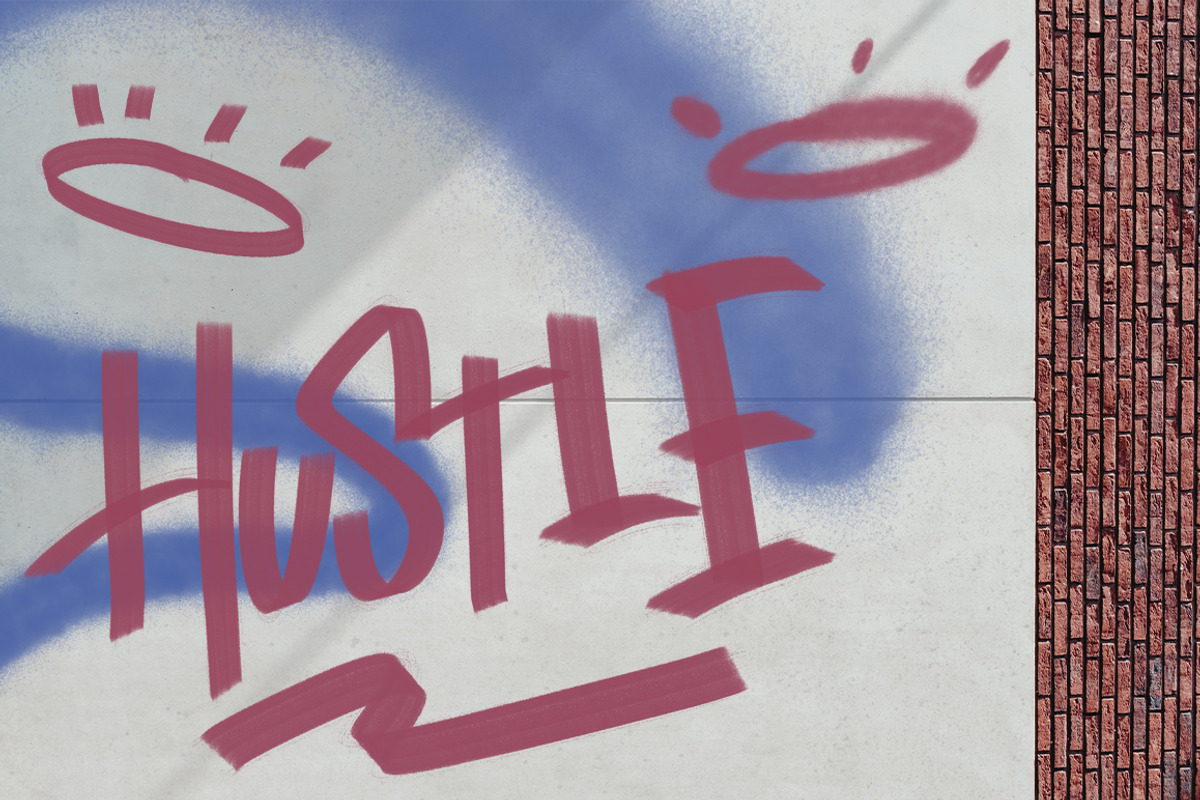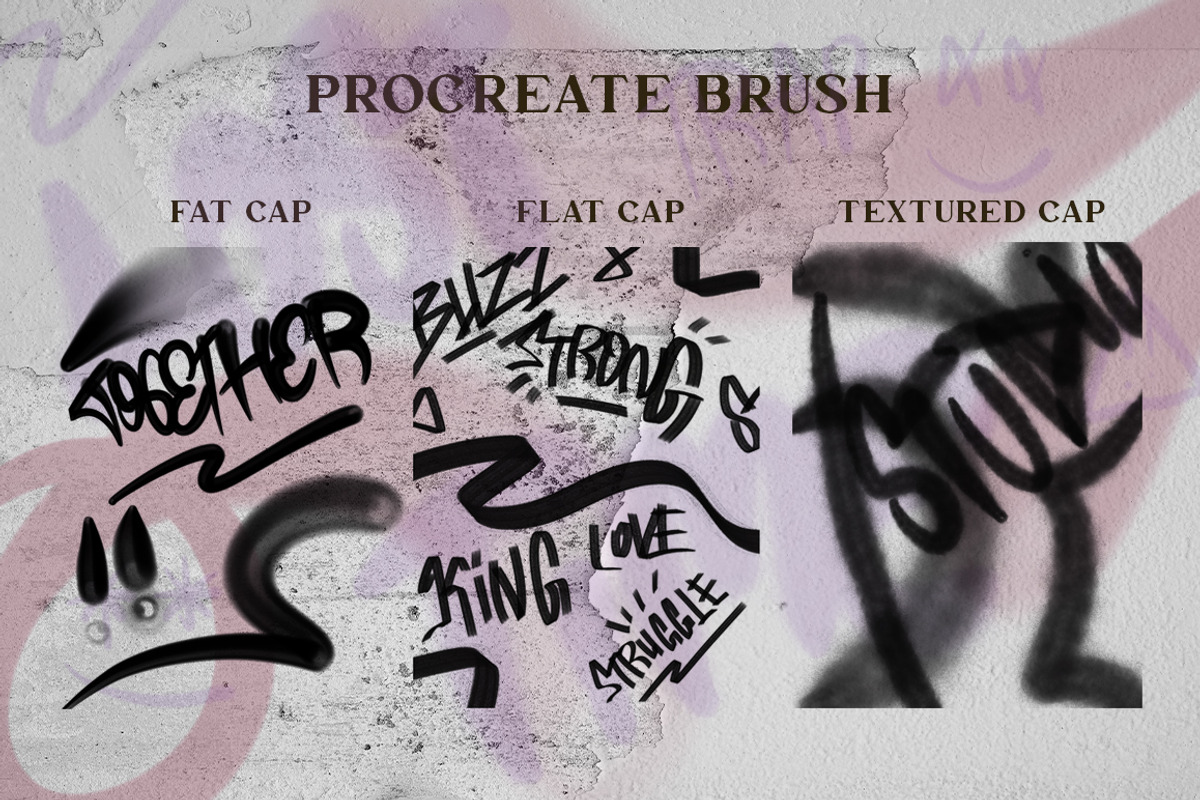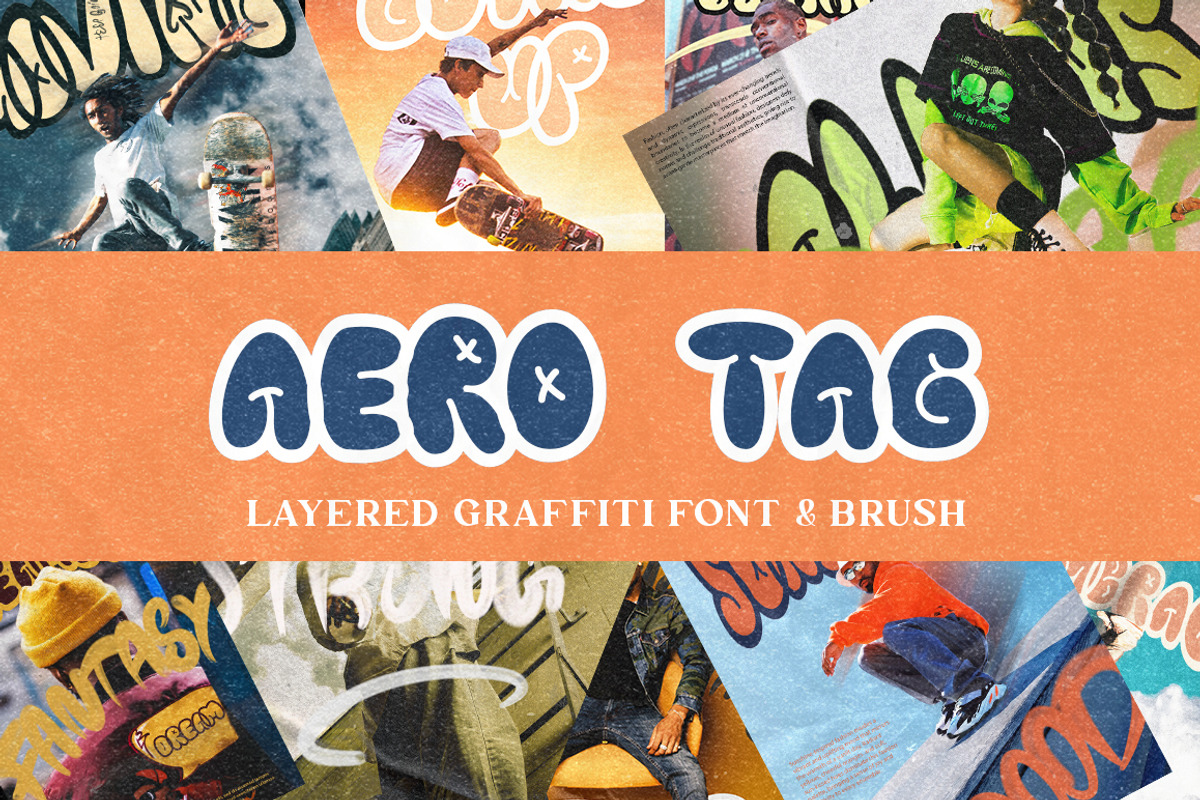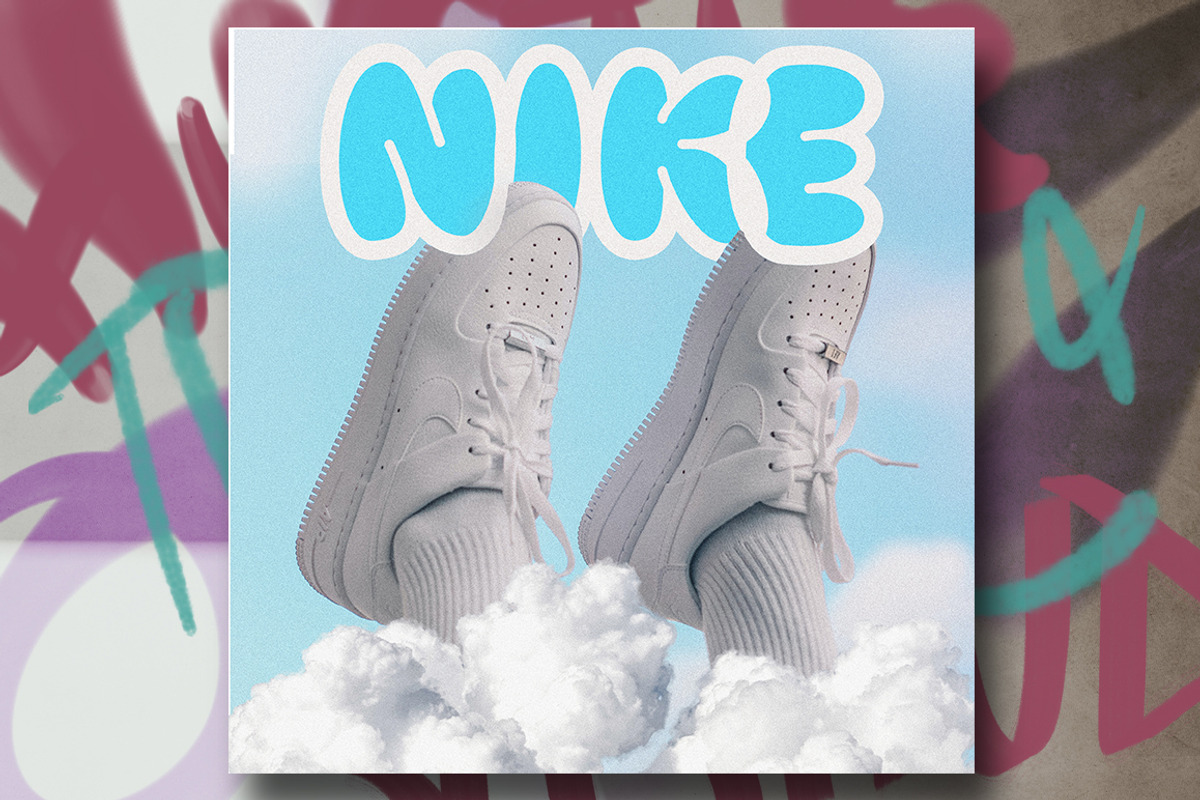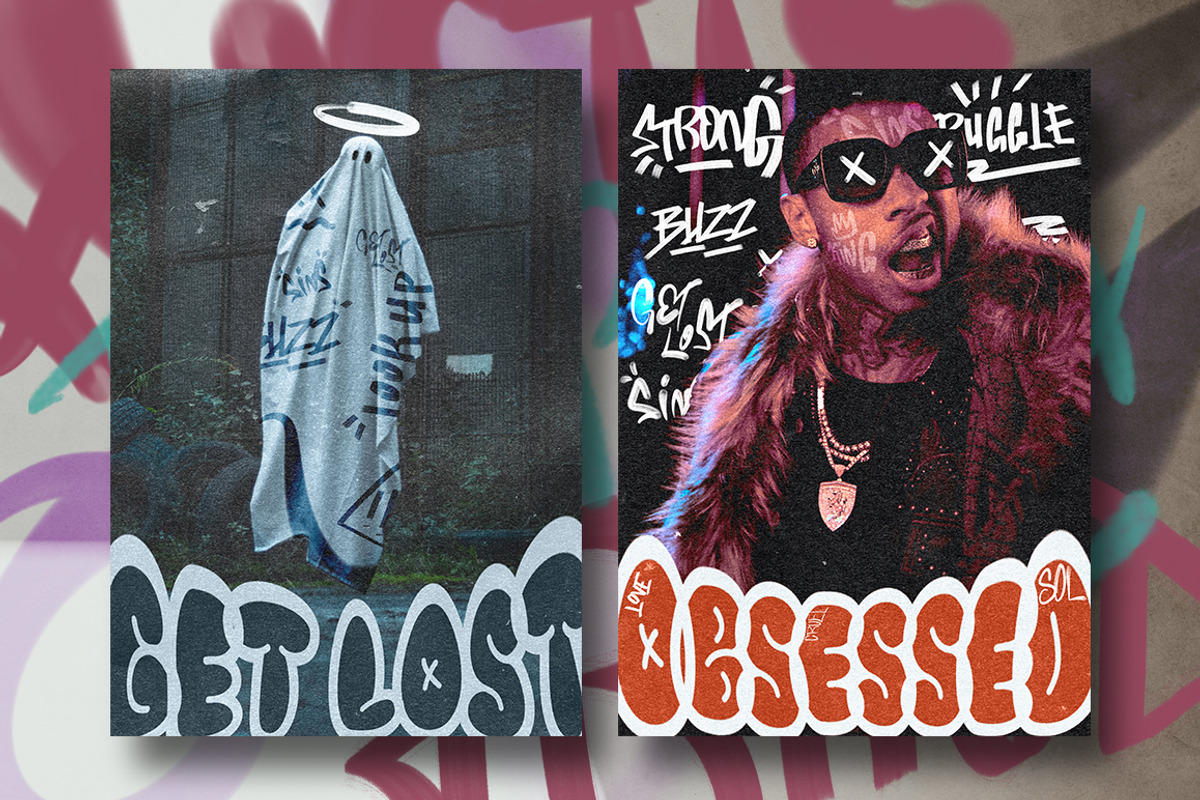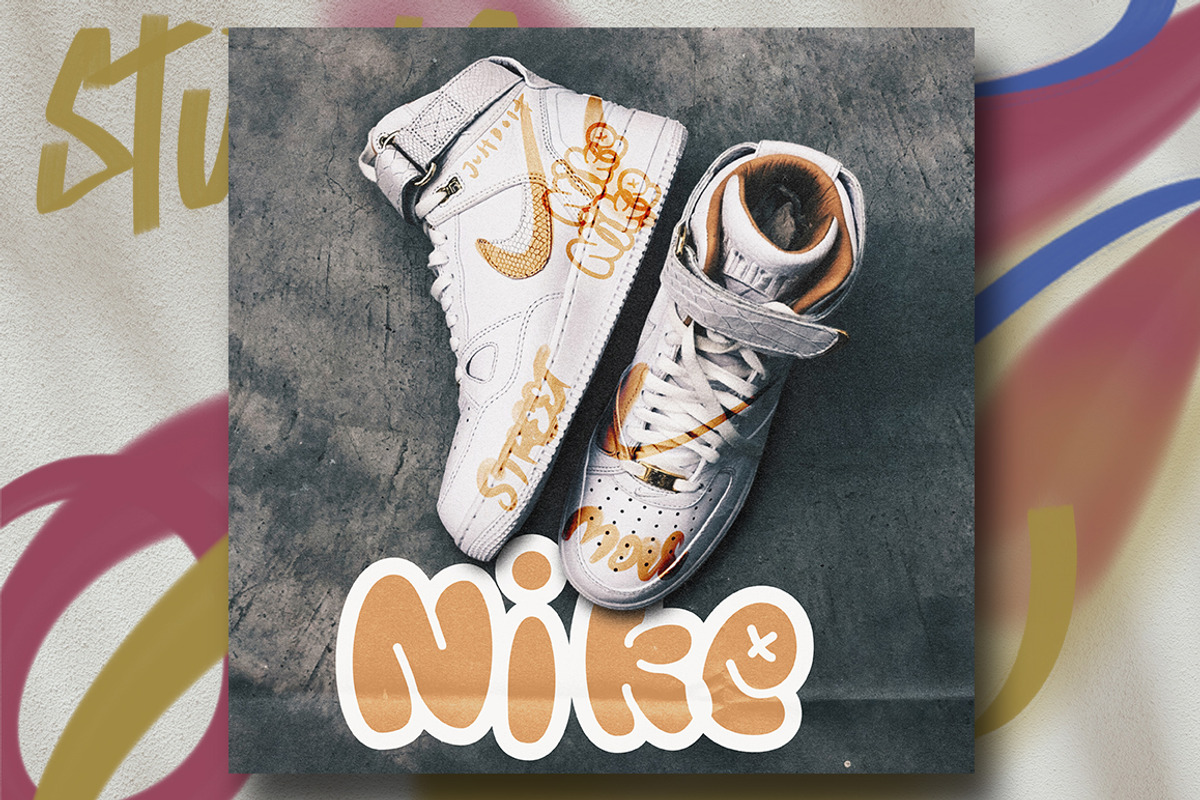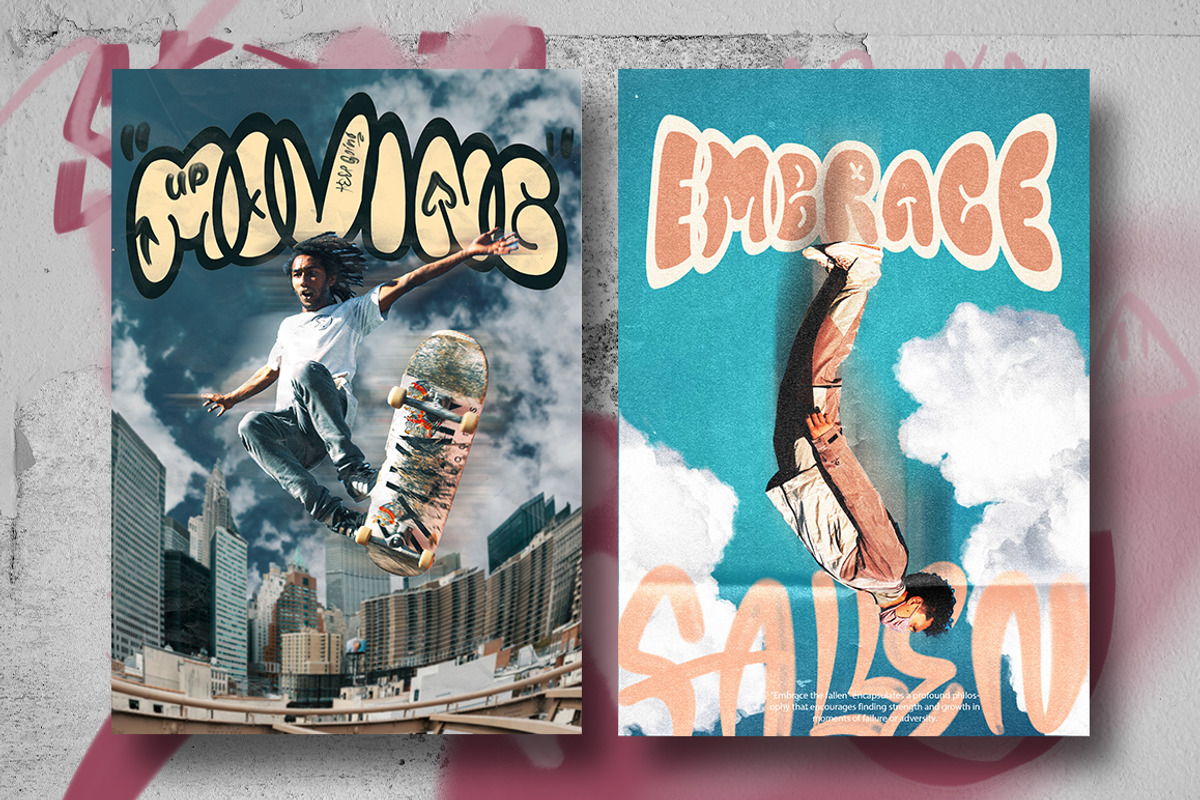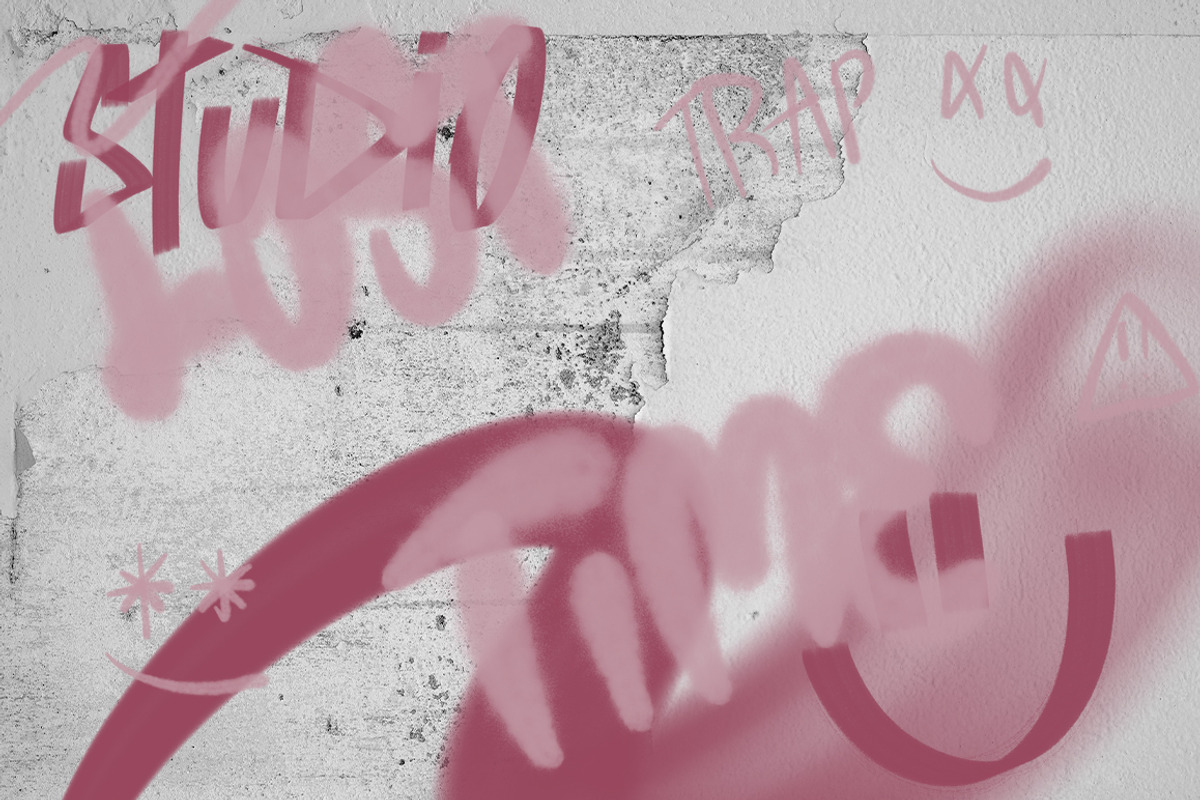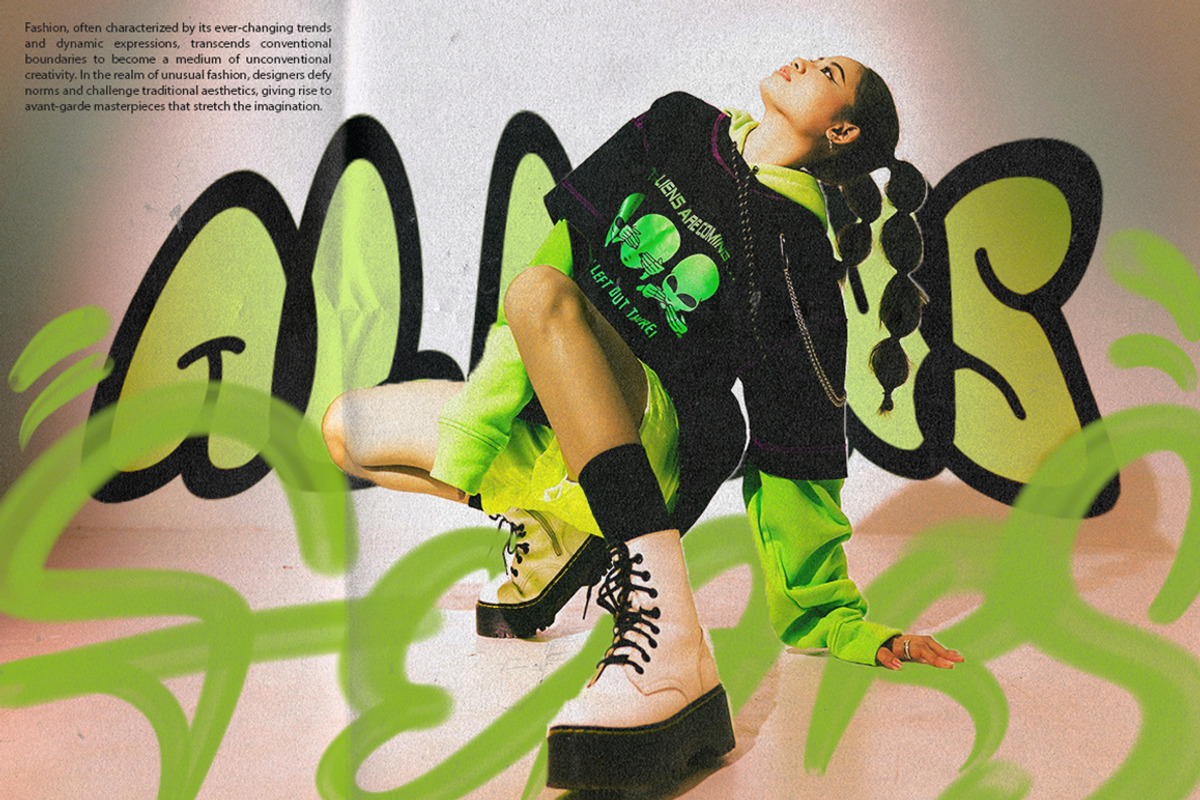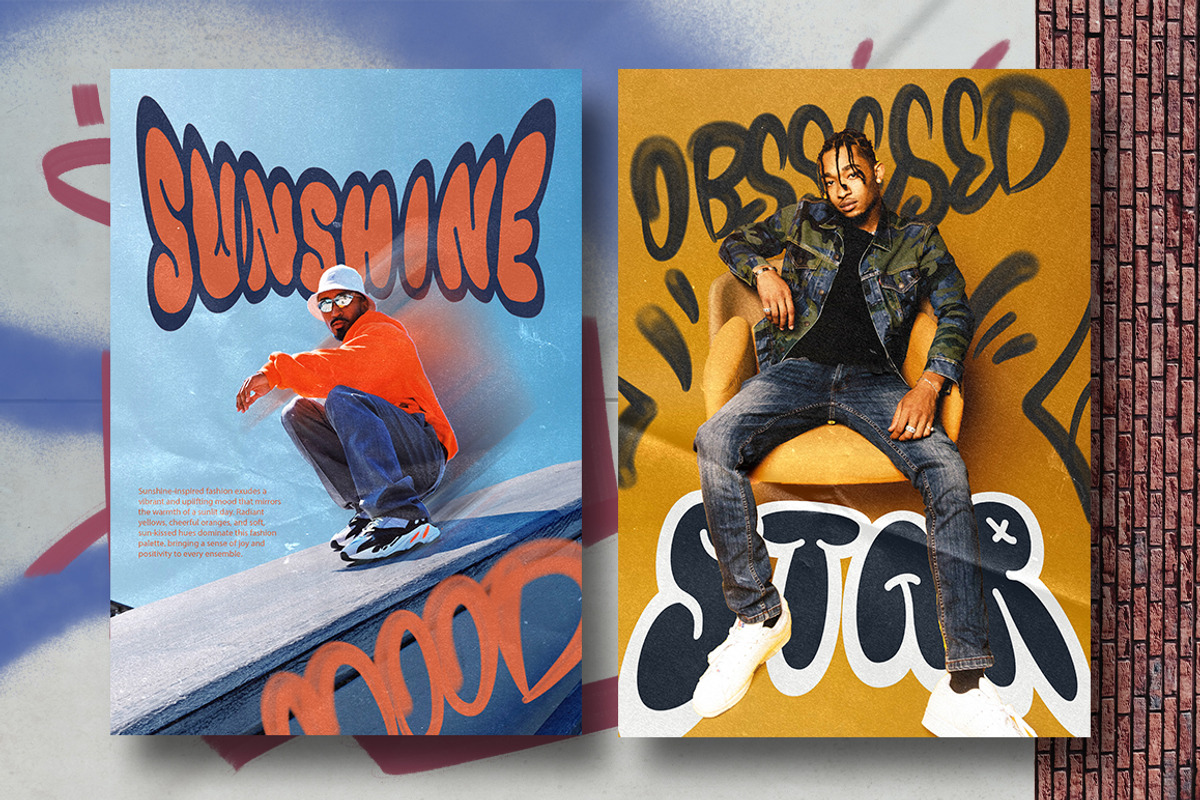
Aero Tag - Graffiti Font and Brushes
Introducing our new cool fonts Aero Tag, The ultimate combination of layered graffiti fonts and Procreate brushes.
Unleash your creativity and add an urban edge to your designs with Aero Tag, featuring a unique fusion of graffiti artistry. Our pack combines the vibrancy of bubble-style graffiti fonts with the intricate detailing of Aero tag-style Procreate brushes, offering a dynamic toolkit for graphic designers, illustrators, and artists alike.
Dive into the world of street art with our cool designed graffiti font. Inspired by the energetic and fluid nature of graffiti, our font captures the essence of urban expression. Its bubble-style letters add a playful yet bold touch to any project, from posters and logos to social media graphics and merchandise.
Elevate your digital artwork with our Aero tag-style Procreate brushes. Crafted with precision and attention to detail, these brushes emulate the authentic aerosol techniques used by graffiti artists with different style of cap. Whether you’re creating digital murals, illustrations, or typography, our brushes offer versatility and authenticity, allowing you to bring the raw energy of graffiti to your digital canvas.